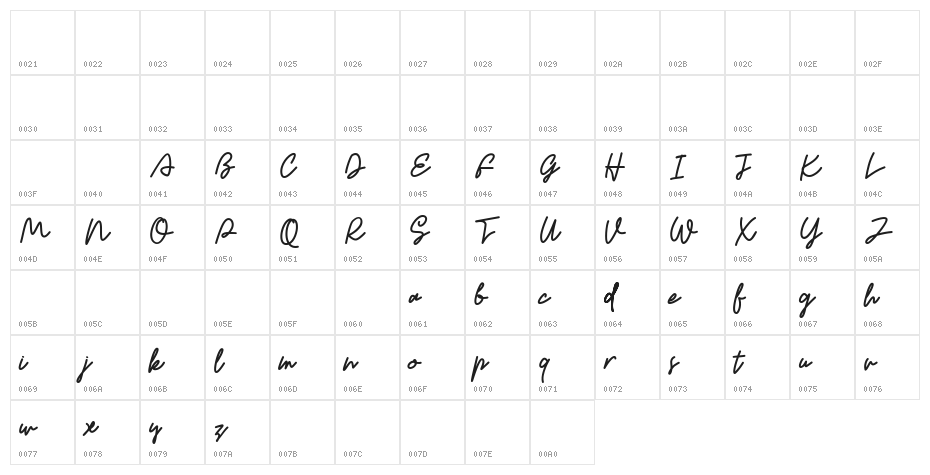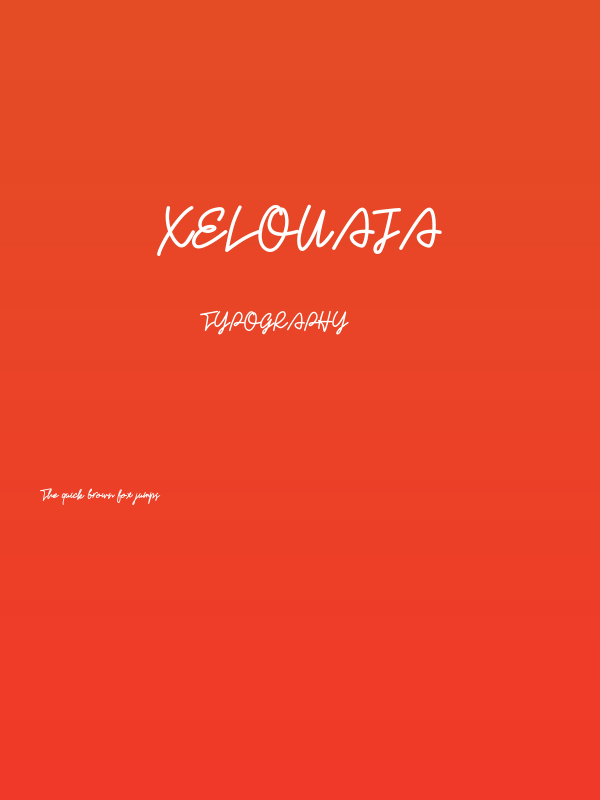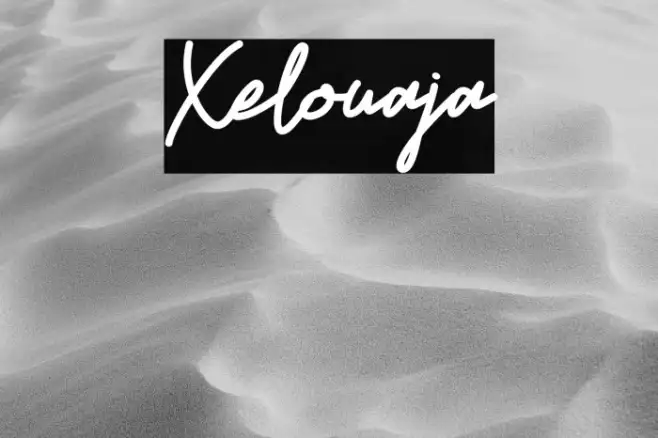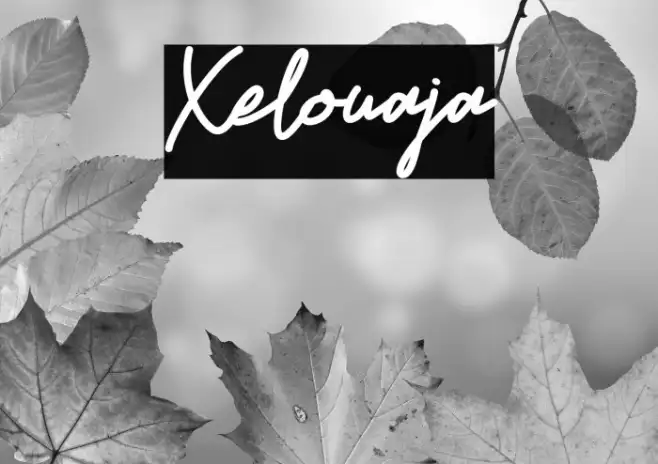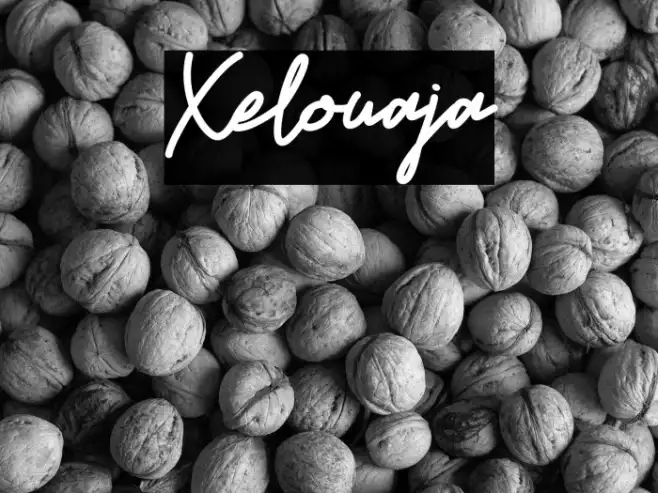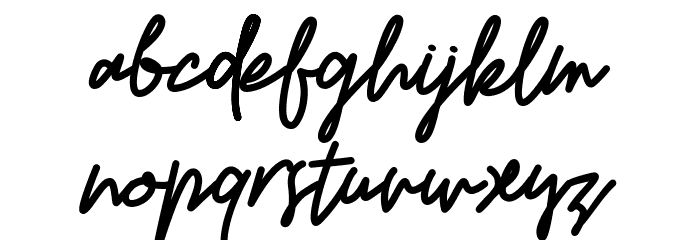
Xelouaja Font
Xelouaja Description
This font features a dynamic and fluid script style, characterized by its smooth, flowing lines and elegant curves. The uppercase letters are slightly more structured, providing a nice contrast to the more freeform lowercase letters. The overall appearance is both stylish and approachable, making it suitable for a variety of creative applications. The strokes are consistent in weight, offering a balanced and harmonious look. The font has a modern yet timeless feel, perfect for adding a touch of sophistication to any project.